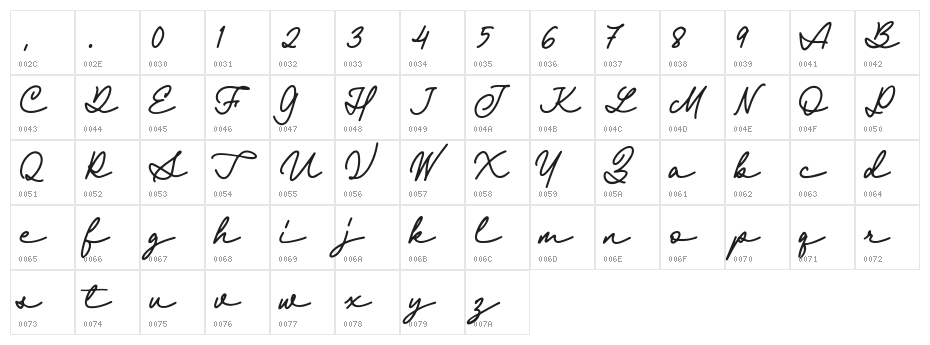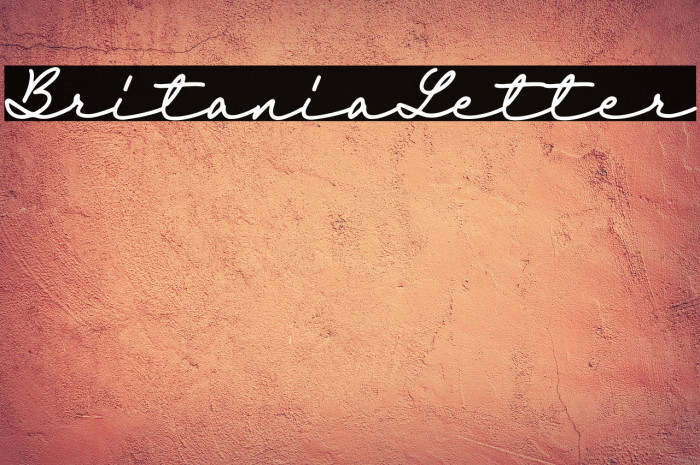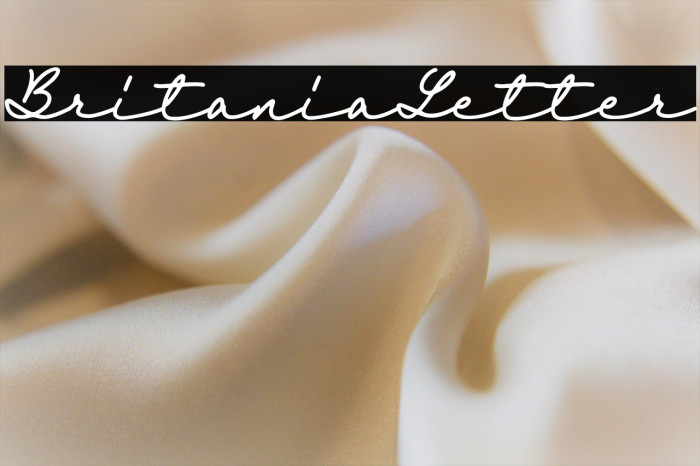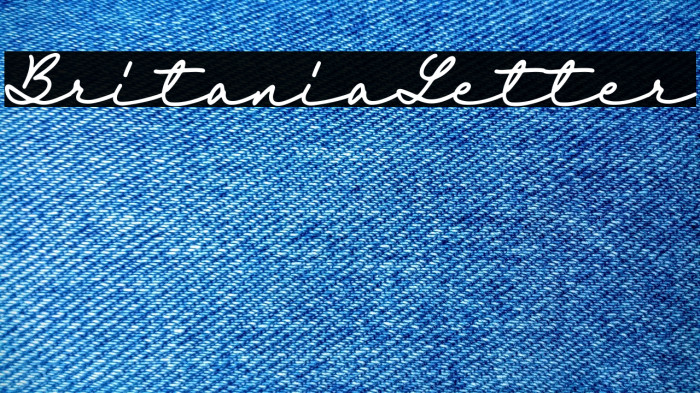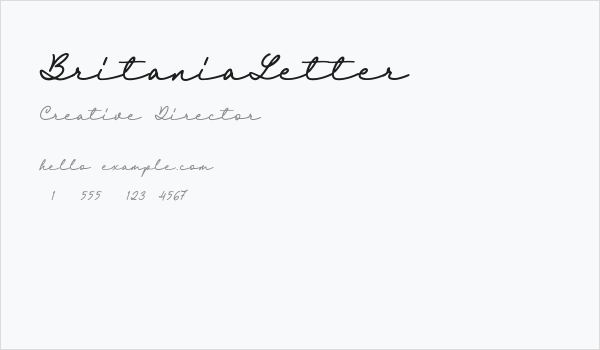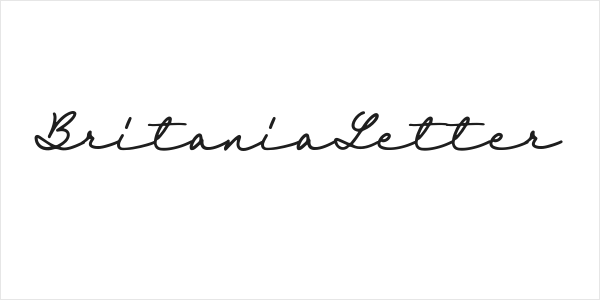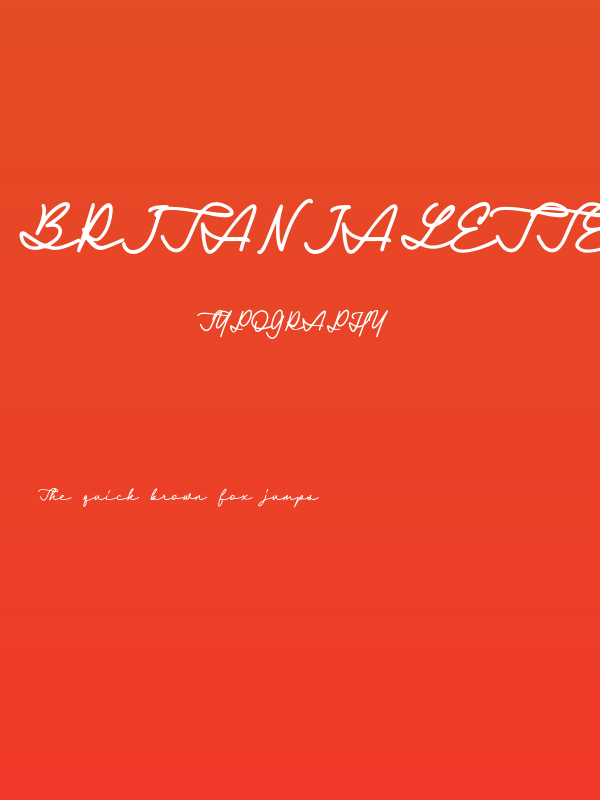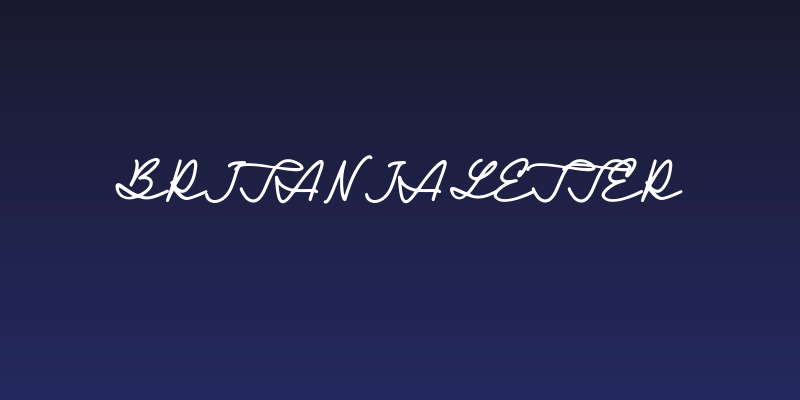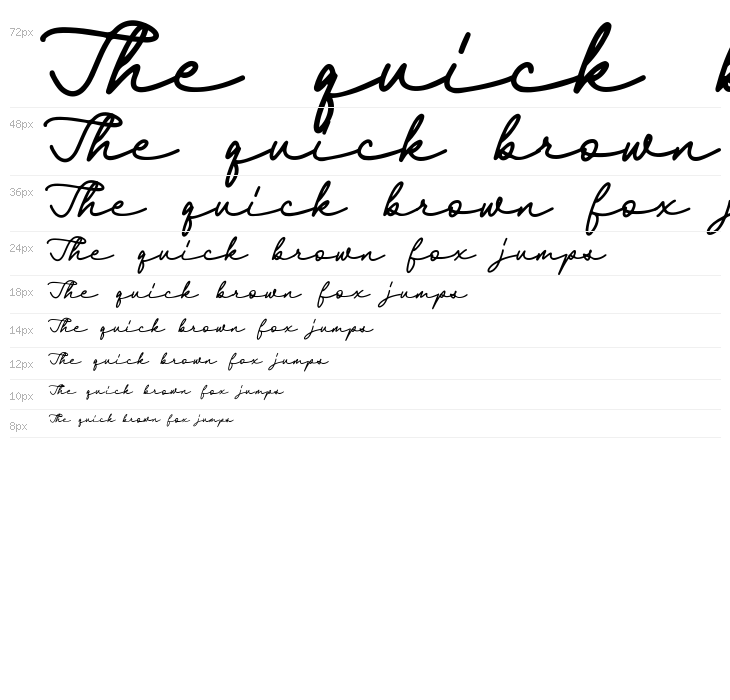
BritaniaLetter Font
BritaniaLetter Description
This font exudes a classic and elegant script style, characterized by its flowing, cursive letterforms. Each character connects seamlessly with the next, creating a harmonious and fluid appearance. The uppercase letters are bold and prominent, while the lowercase letters maintain a consistent and graceful flow. The numerals are distinct yet maintain the overall cursive style, adding a touch of sophistication. The special characters are integrated smoothly, enhancing the font's versatility. This font is ideal for projects that require a touch of elegance and tradition, such as invitations, branding, and decorative purposes.
| Proposed Projects | Ideal for wedding invitations, elegant branding, stationery, and decorative designs. |